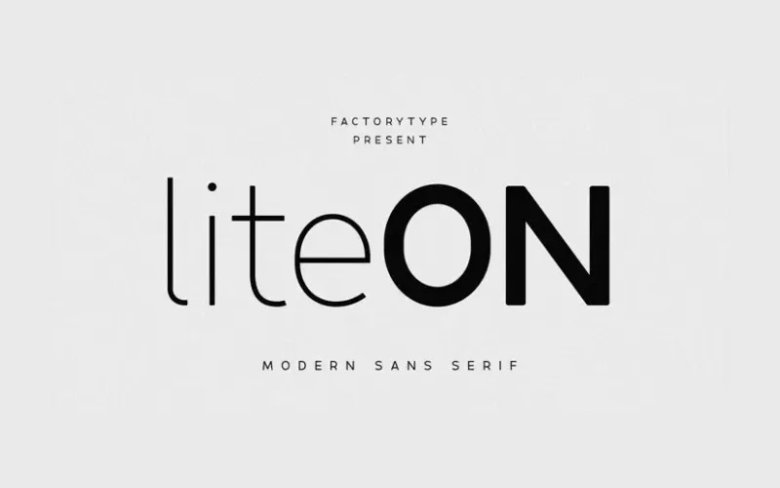
Lite On Font
Lite On is the perfect sans serif font family I would choose if I were to “write” anything in the contemporary world. It appears all elegant and clean to me after a combination of modernistic and minimilastic features.
There are many typographic colors to pick from because of the various weights the ligatures and alternate glyphs mean that the scope of characters available to you is practically unmatched.
Lite On Sans Serif Font